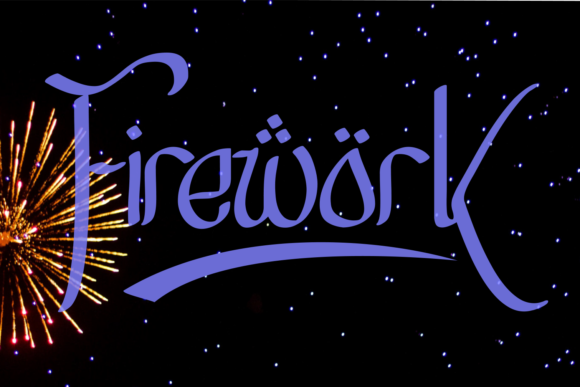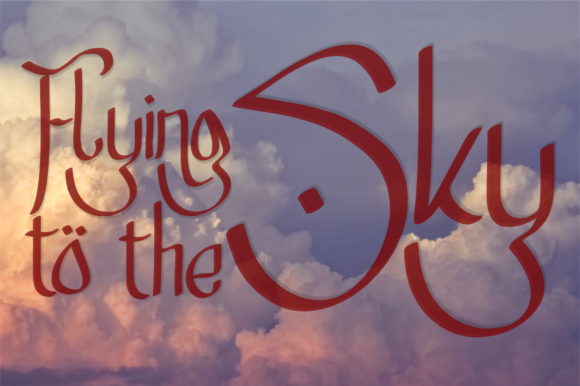
Sandiego Font
About Sandiego Font
Immerse yourself in the distinctive beauty of Sandiego, a unique and Arabic styled handwritten font. With its perfect balance of trendiness and elegance, this font is an excellent choice for a wide range of creative projects. Whether you’re working on crafts, digital designs, presentations, or greeting cards, Sandiego will bring a touch of charm and sophistication to your creations.
The Arabic influence in Sandiego gives it a distinct and captivating flair. The flowing curves and intricate details of each letter showcase the artistry and intricacy of Arabic calligraphy. This font celebrates the rich cultural heritage of the Arabic script and infuses it with a modern twist.
Sandiego is designed to be versatile and adaptable, making it suitable for various design purposes. Its clean and legible characters ensure readability while adding a touch of elegance to your projects. From logos and branding to social media graphics and digital art, Sandiego adds a unique and eye-catching element to your designs.
Whether you’re creating traditional Arabic-themed artwork or seeking a stylish font for contemporary designs, Sandiego will exceed your expectations. Its versatility allows it to seamlessly blend with different design elements, making it a valuable addition to your font collection.
Sandiego’s handwritten style adds a personal and authentic touch to your projects. It exudes a sense of warmth and creativity, making it perfect for conveying emotions and storytelling through your designs. The unique Arabic-inspired elements bring a sense of cultural richness and sophistication to your artwork.
With Sandiego, you have the freedom to unleash your creativity and explore various design possibilities. Its trendiness makes it suitable for modern and fashionable projects, while its Arabic influence adds a touch of cultural depth and significance.
Whether you’re designing digital graphics, crafting personalized gifts, or creating stunning presentations, Sandiego will elevate your work to new heights. Its unique combination of Arabic style and contemporary flair will captivate your audience and make your designs truly unforgettable.
Embrace the uniqueness of Sandiego and let it become your go-to font for adding a touch of trendiness and cultural richness to your designs. Explore the endless possibilities it offers and watch as your creations come to life with its distinct charm and elegance.